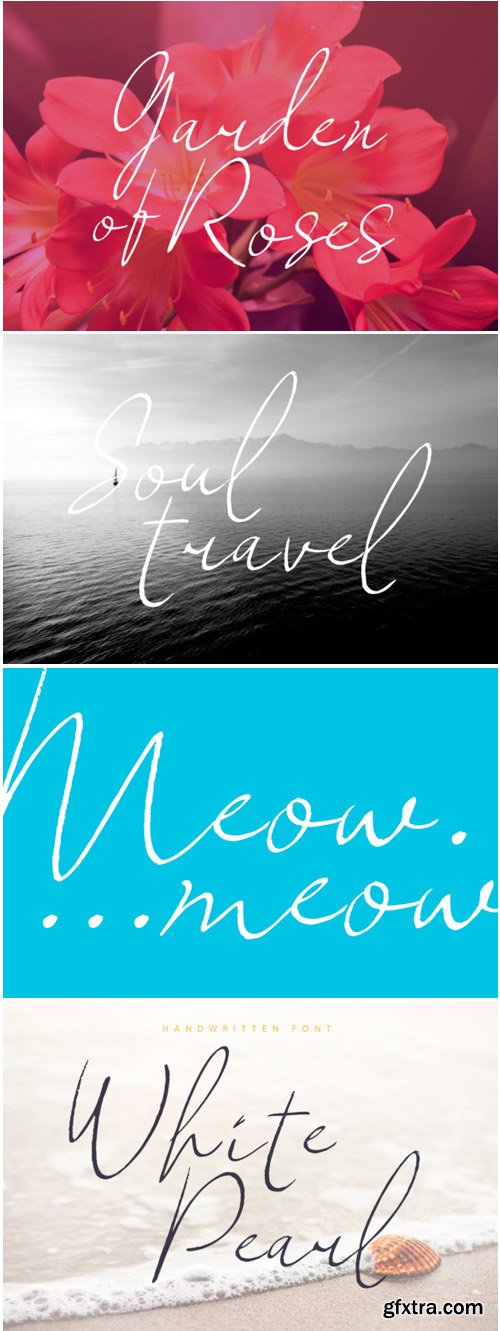
White Pearl Font
The White Pearl is an expressive, sketchy, handwritten font. It has a natural look which can be used to add an amazing handwritten touch to your designs.